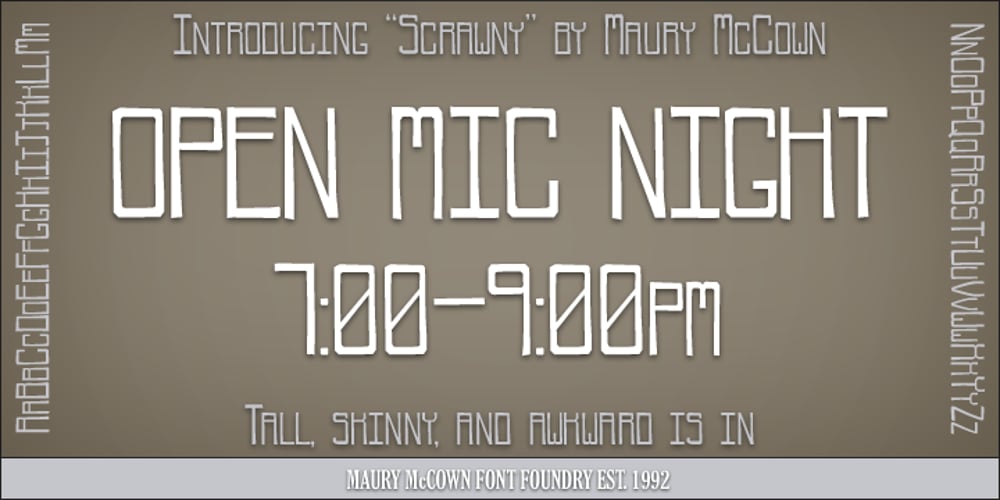
Scrawny Font Family was designed by Maury McCown and published by Maury McCown. Scrawny contains 1 styles and family package options. Scrawny is a long-legged beanpole of a font. Quirky, a little retro — and most certainly smile-inducing — Scrawny sports tall and thin characters with high horizontal crossbars to give a feeling of “cute shyness” and “warm fuzziness.” Scrawny works great for banners, announcement text, labels, and anything else that requires something with a bit of whimsy.